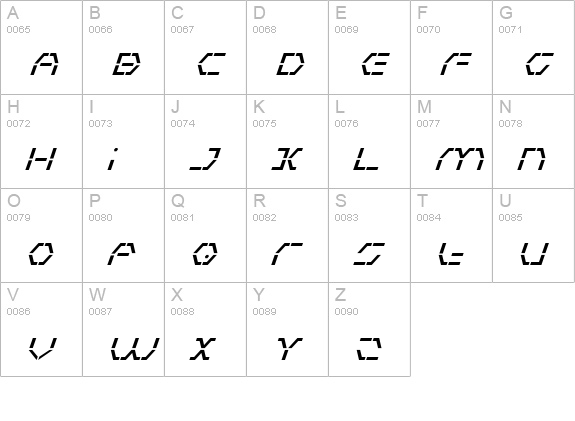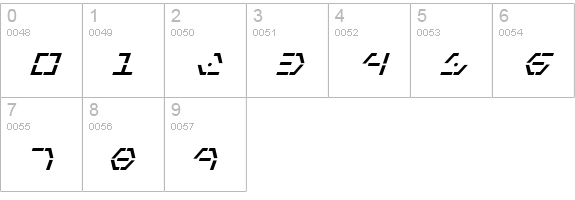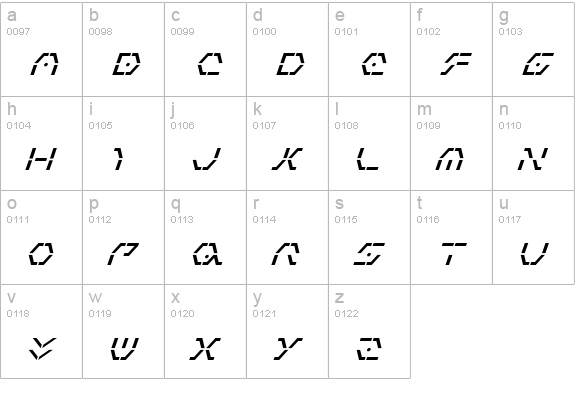
Zeta Sentry Italic is a distinctive, italic variant in the Zeta typeface family \xE2\x80\x94 well suited to design and typography projects.
Zeta Sentry Italic font is a sleek and modern typeface that exudes sophistication and elegance. With its unique italic style and clean lines, this font is perfect for adding a touch of class to any design project. The Zeta Sentry Italic font is versatile and can be used for a wide range of purposes, from branding to editorial design. The best part? Zeta Sentry Italic font is available for free download at FontsMarket.com. Now you can elevate your projects with this premium font without breaking the bank. Don't miss out on the opportunity to enhance your designs with the stylish Zeta Sentry Italic font, available for free at FontsMarket.com.